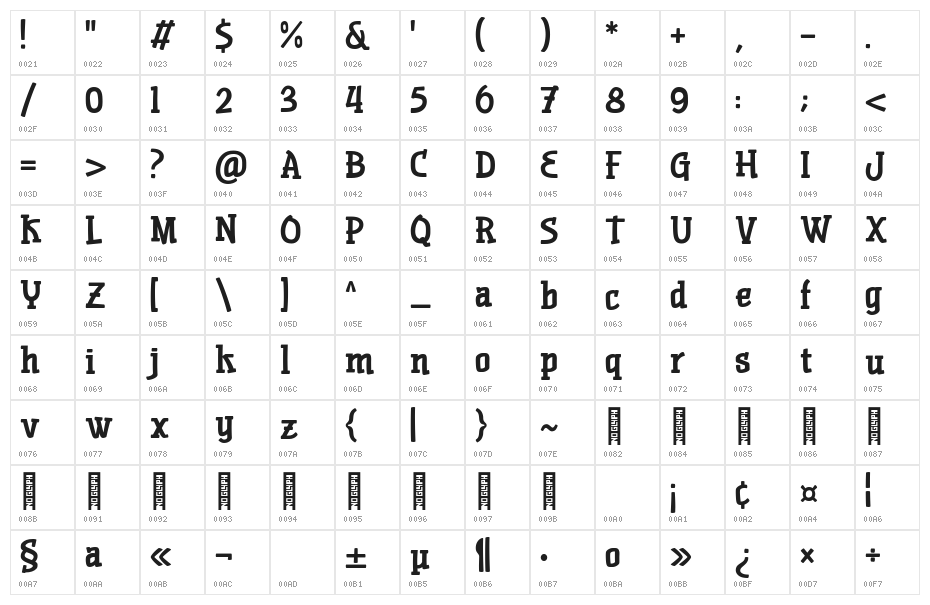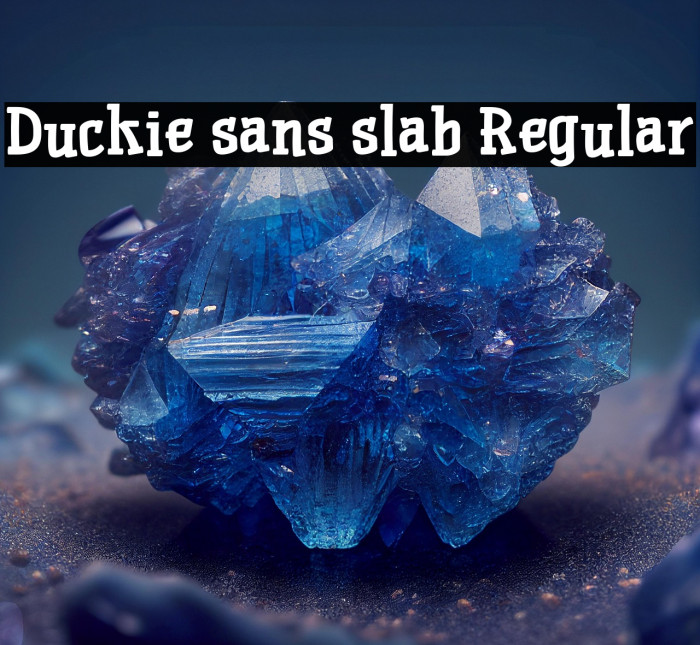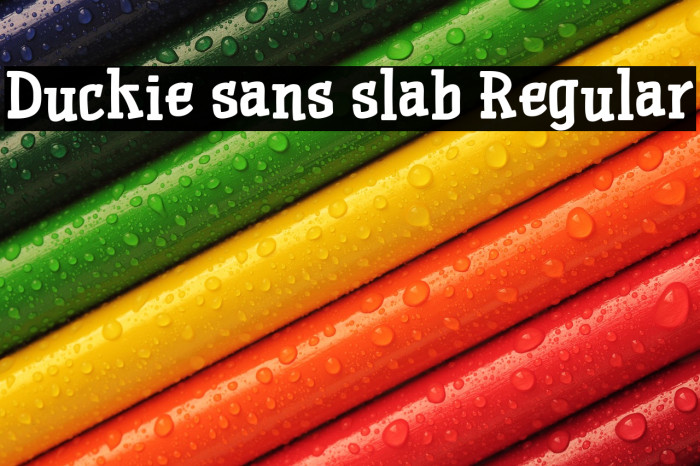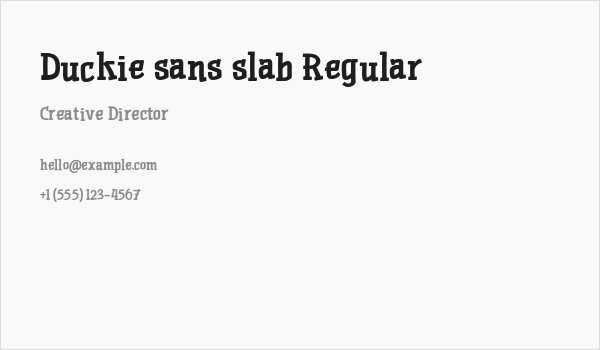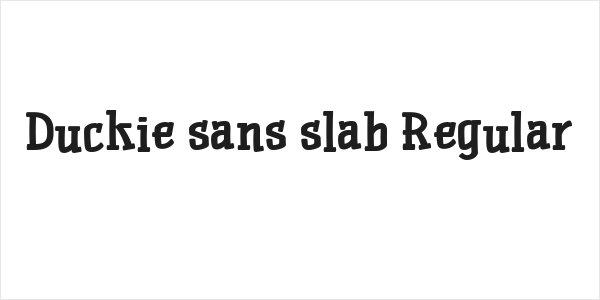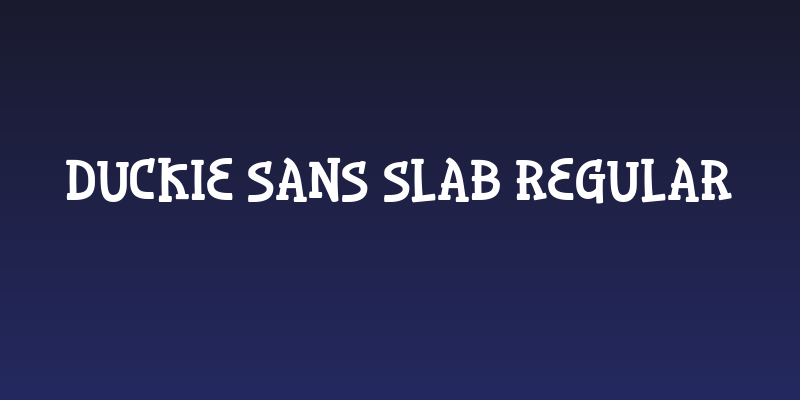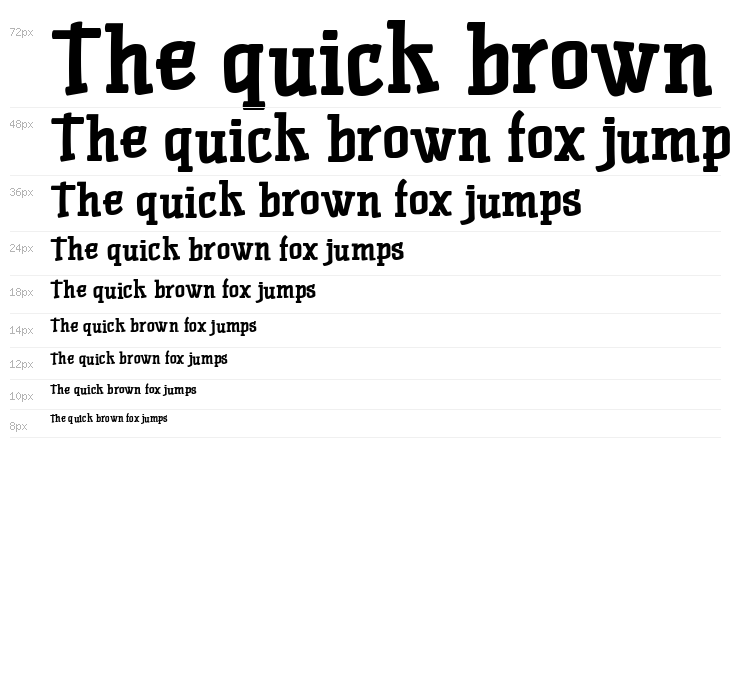
Duckie sans slab Regular Font
Duckie sans slab Regular Description
This font features a bold and playful design with a slab serif style. The characters are robust and slightly rounded, giving them a friendly and approachable appearance. The uppercase letters are strong and prominent, while the lowercase letters maintain a consistent style with a slight variation in stroke width. The numerals are clear and easy to read, matching the overall aesthetic of the font. Special characters are well-integrated, maintaining the playful yet sturdy design. This font is versatile, suitable for both digital and print media, and can add a unique touch to any project.
| Overall Style | Playful, Modern |
| Proposed Projects | Ideal for children's books, playful branding, posters, and headlines. |